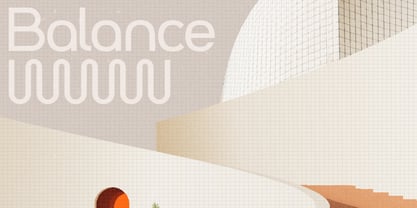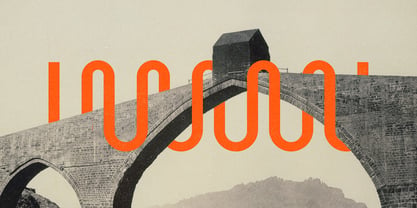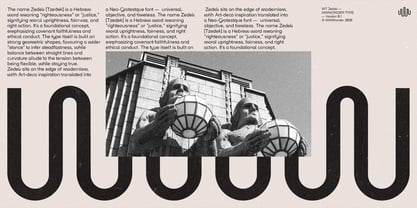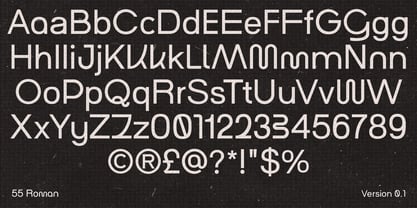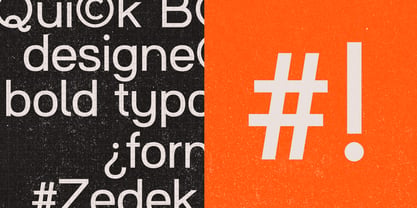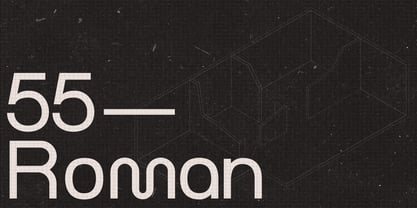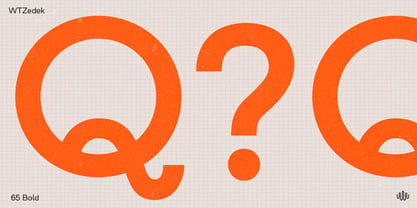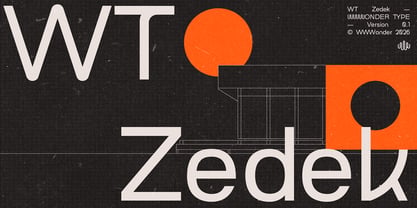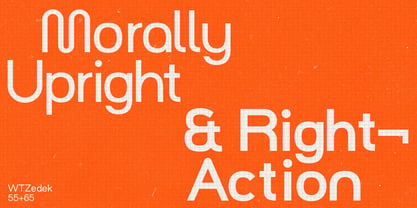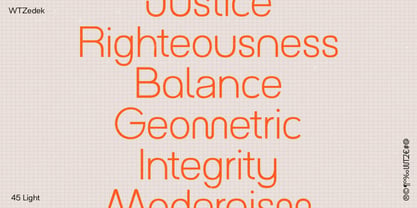
WT Zedek
par WWWonder Type
La famille de polices WT Zedek a été conçue par Joaquin Cardelli et publiée par WWWonder Type. WT Zedek contient 3 styles et options de package familial. En savoir plus sur cette famille
The word Zedek (Tzedek) means "righteousness" or "justice," signifying moral uprightness, fairness, and right action. It's a foundational concept, emphasizing covenant faithfulness and ethical conduct.
The type itself is built on strong geometric shapes, favouring a wider “stance” to infer steadfastness, while balance between straight lines and curvature allude to the tension between being flexible, while staying true. Zedek sits on the edge of modernism, with Art-deco inspiration translated into a Neo-Grotestque font — universal, objective, and timeless.